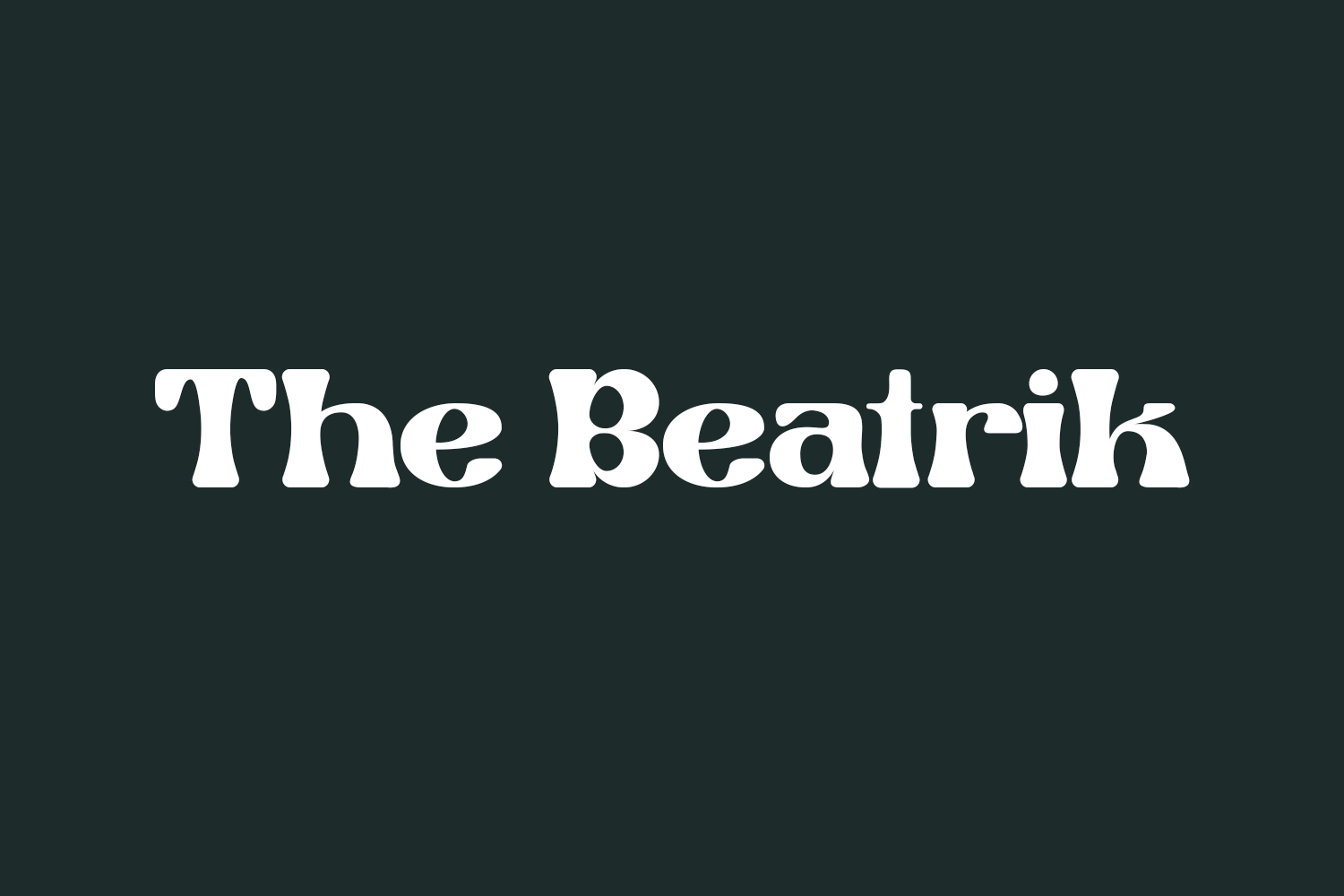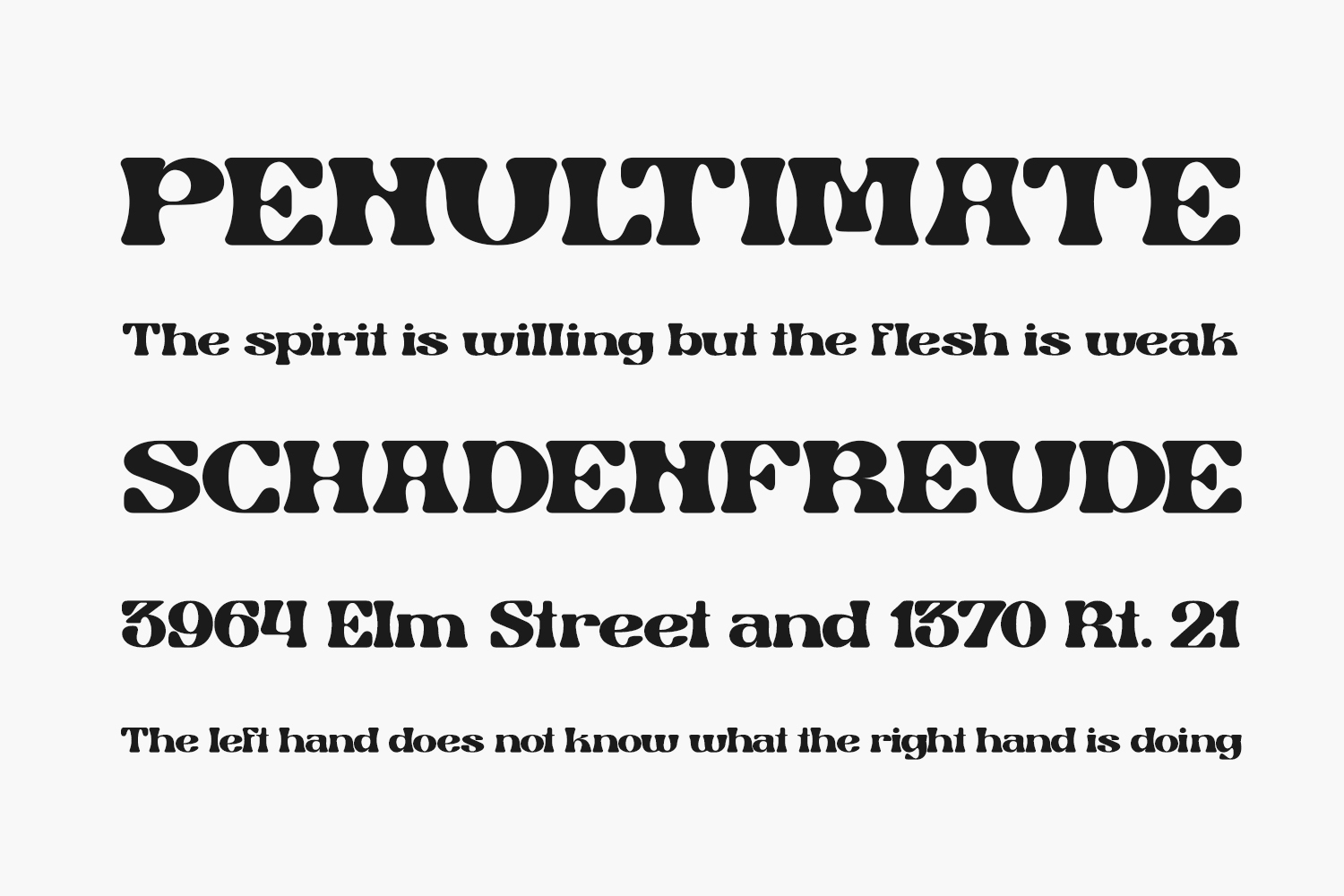
Beatrik Free Font is a cool, stylish, and bold serif font. This typeface is perfect for an elegant & luxurious logo, book or movie title design, fashion brand, magazine, clothes, lettering, quotes, and so much more.